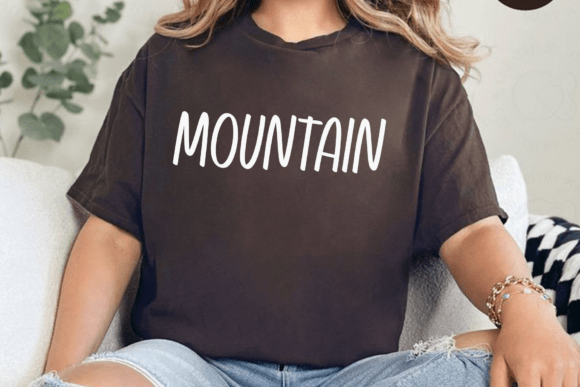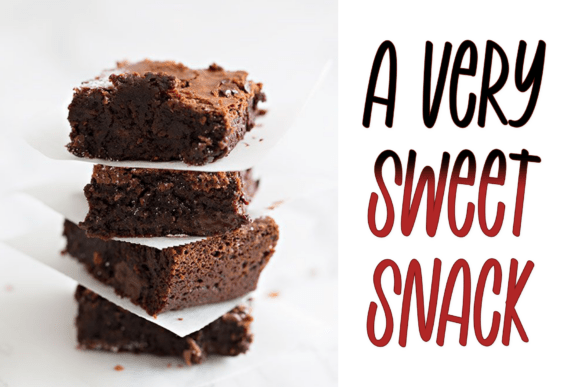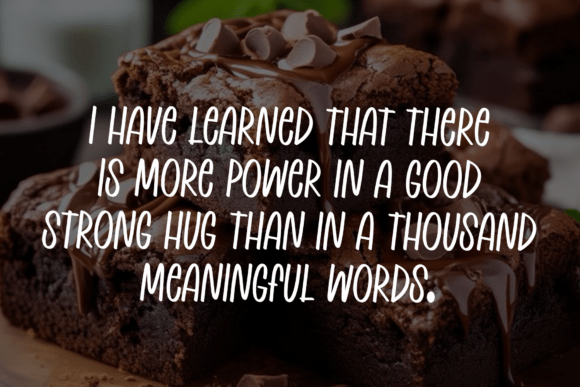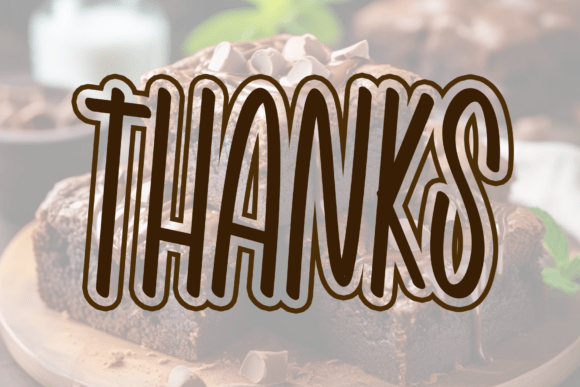
A Delicious Twist on Typography
You know that moment when you’re browsing through design inspiration boards, and you stumble upon a typography style that makes you crave a freshly baked treat? For us, that moment often comes when we see the perfect combination of texture, warmth, and playfulness. Introducing Brownie Font, a modern display font designed to bring a slice of comfort and charm to your creative projects.
With its pillowy letterforms and hand-inked outline, Brownie Font captures the essence of its namesake treat, adding a delightful layer of texture to your designs. Whether you’re working on a bakery branding, a dessert shop logo, or a premium cocoa packaging, Brownie Font is the perfect choice to elevate your project’s aesthetic. As a designer, you’ll appreciate the versatility and charm of Brownie Font, making it an essential addition to your typography toolkit.
Brownie Font Key Features
- Font Style: Script, handwritten
- Unique Characteristics: Includes a variety of ligatures, swashes, and flourishes for a more natural, handwritten look
Brownie Font Review
I recently had the chance to work with the Brownie Font, and I must say it’s a delightful addition to any design project. ✨ The font’s unique, hand-drawn feel gives it a warm and inviting personality that’s sure to grab attention. It’s perfect for branding and marketing materials, especially those with a whimsical or vintage vibe.
One of the things I love about Brownie Font is its versatility. ✨ It’s suitable for both digital and print applications, and it can be easily customized to fit your design needs. The font also comes in a range of weights, from light to bold, which makes it easy to create visual hierarchies and emphasize important text.
- Unique, hand-drawn feel
- Warm and inviting personality
- Versatile and suitable for both digital and print applications
- Customizable to fit design needs
- May not be suitable for formal or professional applications
- Some characters may be difficult to read at small font sizes
- Limited language support
Overall, I’m impressed with the Brownie Font, and I would definitely recommend it to designers looking for a unique and eye-catching font. However, it’s essential to keep in mind its limitations and use it judiciously in your design projects.
Tips for Getting the Most Out of Brownie Font
The Brownie font is a playful, cursive font that works well for titles, headings, and other text elements. To get the most out of it, use it sparingly and in conjunction with other fonts to create visual interest. You can also experiment with different font sizes, colors, and combinations to achieve the desired effect.
The Brownie font is commonly used for:
• Titles and headings
• Wedding invitations and stationery
• Children’s books and educational materials
• Social media graphics and ads